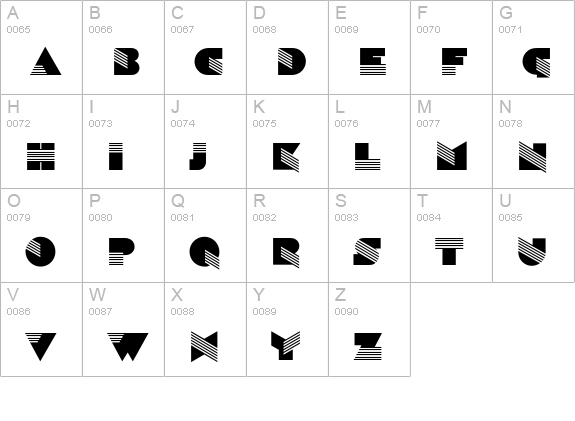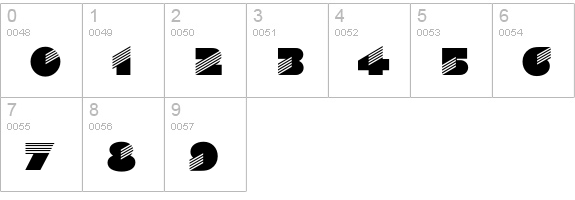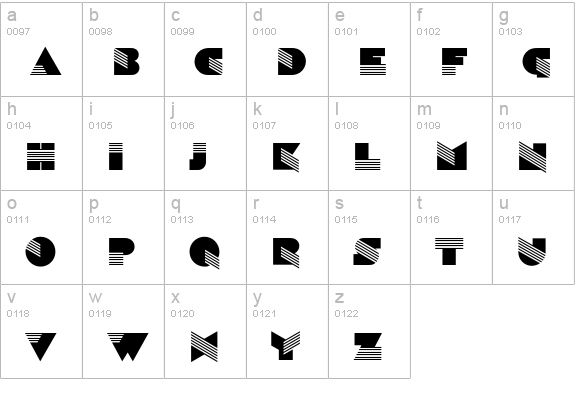
SinaloaICG Font Details
SinaloaICG font is an exquisite and stylish typeface that exudes elegance and sophistication. Its beautifully crafted letterforms are a perfect blend of modernity and timeless appeal, making it suitable for a wide range of design projects. With its clean lines and graceful curves, SinaloaICG font brings a touch of professionalism to any design. Whether used for branding, packaging, advertising, or any other creative endeavor, this font adds a touch of refinement that captivates the audience. One of the most appealing aspects of SinaloaICG font is that it is freely available to download at FontsMarket.com. This means that designers and enthusiasts can access this remarkable font without any cost, allowing them to explore its endless possibilities in their projects. The versatility of SinaloaICG font is truly remarkable. From bold headlines to elegant body text, this typeface adapts effortlessly to any typographic need. Its legibility remains intact even in smaller sizes, ensuring that every detail of your design is conveyed with clarity. The craftsmanship of SinaloaICG font is evident in every character. Each letter is meticulously designed, resulting in a cohesive and harmonious typeface that is a pleasure to work with. The attention to detail extends to the punctuation marks and special characters, ensuring that every aspect of your typography is flawless. Designed with the needs of modern designers in mind, SinaloaICG font is compatible with a wide range of software and devices. Whether you are working on a Mac or PC, using Adobe Creative Suite or Microsoft Office, this font seamlessly integrates into your workflow, allowing you to unleash your creativity without any technical limitations. In conclusion, SinaloaICG font is a stunning typeface that combines elegance, versatility, and legibility. Its freely available download at FontsMarket.com makes it accessible to anyone looking to elevate their designs. So go ahead, explore the possibilities of SinaloaICG font and create captivating visuals that leave a lasting impression.